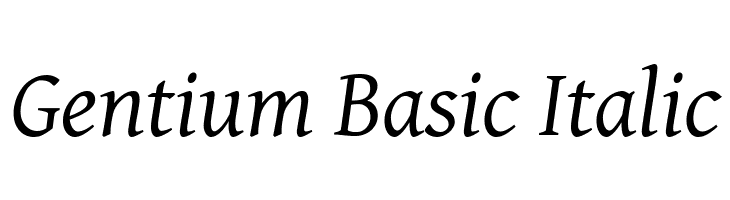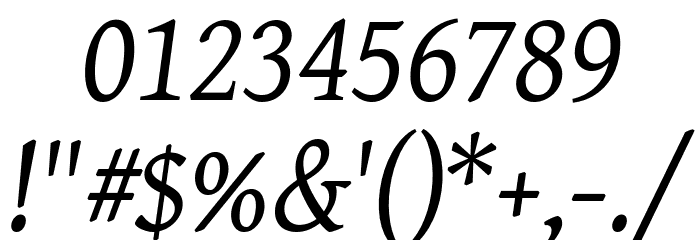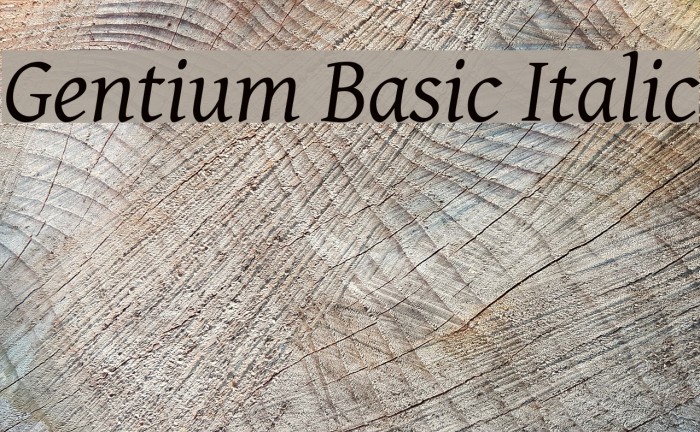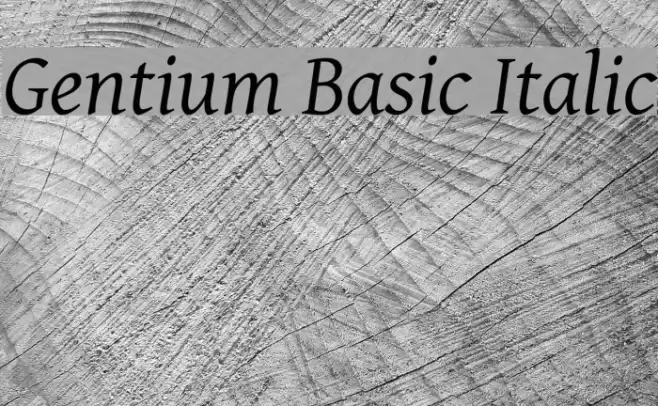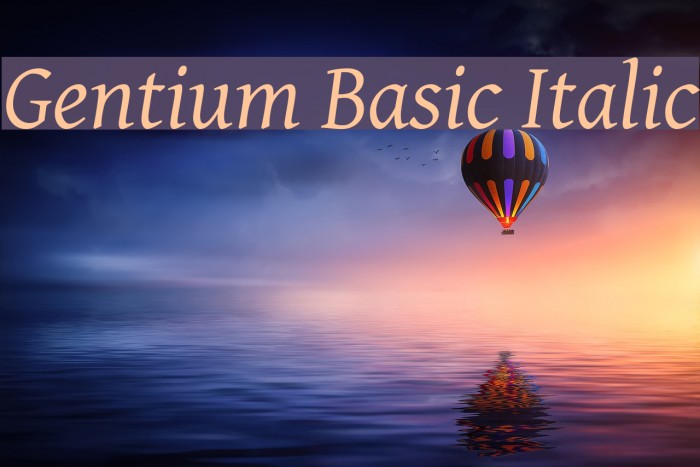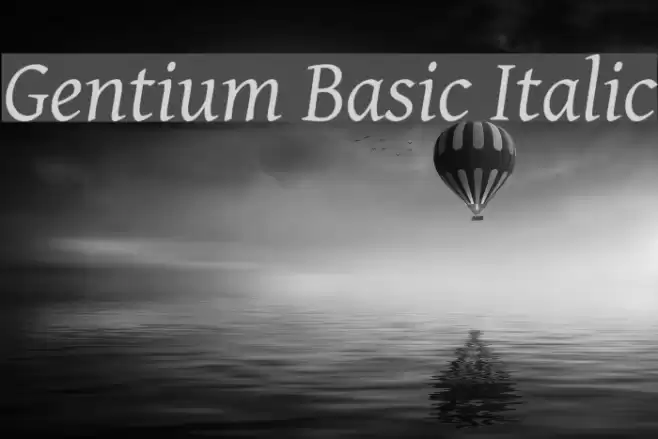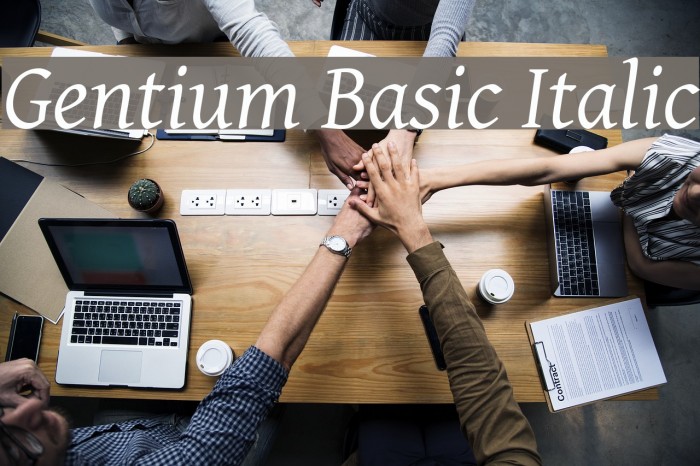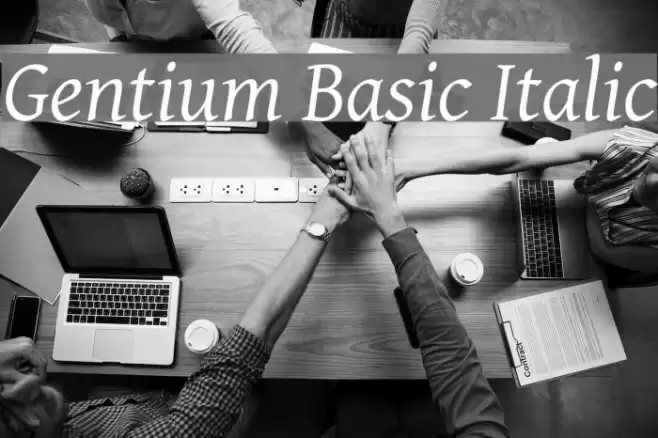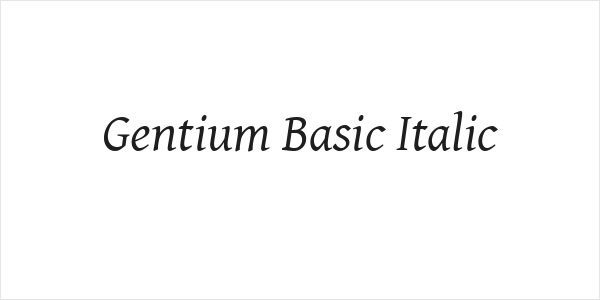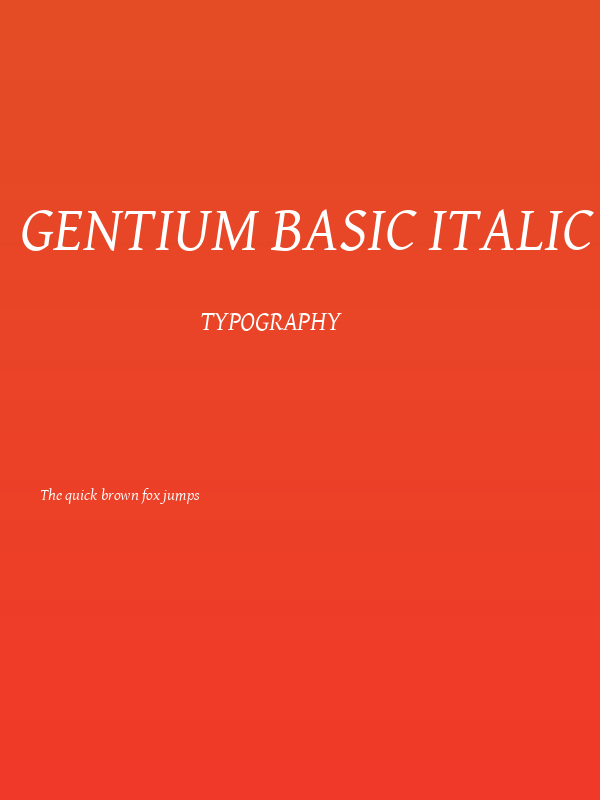
Gentium Basic Italic Font
Gentium Basic Italic Description
This font exhibits a classic and elegant style with a slight slant, indicative of its italic nature. The characters are well-formed with a moderate contrast between thick and thin strokes, giving it a refined and sophisticated appearance. The serifs are gently curved, adding to the overall gracefulness of the typeface. The lowercase letters are slightly more rounded, providing a harmonious balance with the more angular uppercase letters. The numerals are clear and legible, maintaining the font's overall aesthetic. Special characters are designed with the same attention to detail, ensuring consistency across all glyphs.
| Use Case | Body text, Formal documents, Invitations |
| Proposed Projects | Ideal for projects requiring a touch of sophistication, such as wedding invitations, formal documents, or classic book typesetting. |